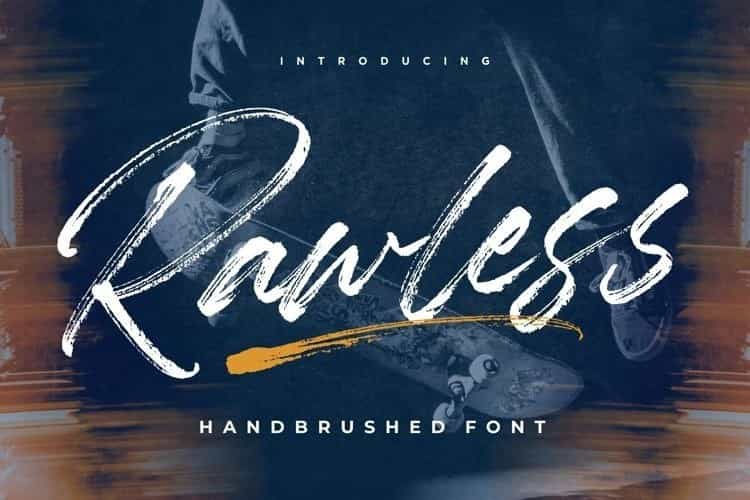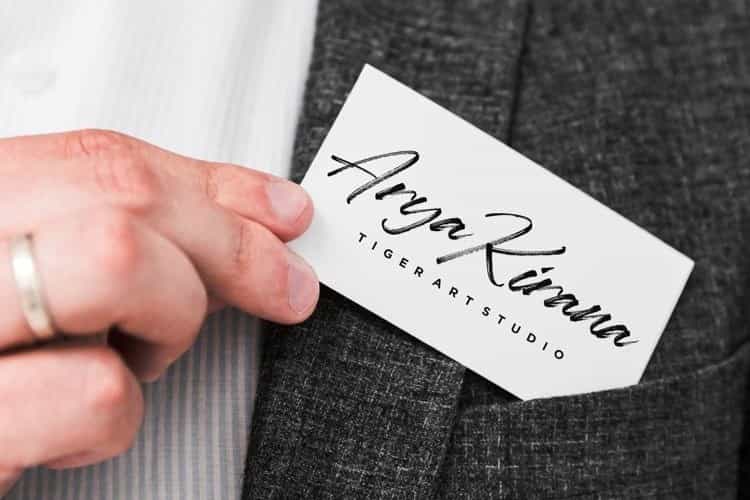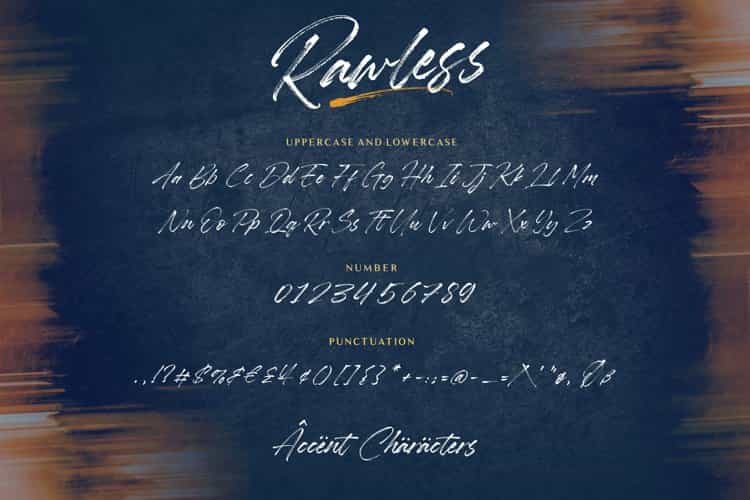
Discover Rawless Brush Font, part of the Brush collection—a versatile and unique font perfect for adding a personal touch to your projects. Download it for free and enjoy crafting designs with style, from invitations to social media posts. This font is available exclusively for personal use, giving you the freedom to create without limits. Unlock your creativity with Rawless Brush Font today!
Rawless is suitable for designing products such, as packaging, logos, invitations, stationery, branding, photographs, watermarks, magazines, social networks, weddings and others. The font is in True Type Font or TTF format. Provides support as well as the Swash features.